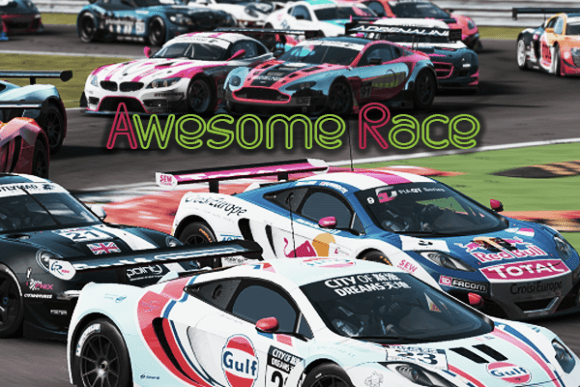
Introduction to Linu Font
As a designer, have you ever been stuck in a creative rut, unable to find the perfect font to bring your project to life? I know I have. But then, like a breath of fresh air, I stumbled upon the Linu Font – a double-lined masterpiece that has become my go-to design resource.
With its high-quality design, the Linu Font is a game-changer for any creative project. Its unique double-lined style adds a touch of sophistication and elegance, making it perfect for designers who want to elevate their work to the next level.
What I love most about the Linu Font is that it’s not only free to download, but it also comes with a transparent background, making it incredibly versatile and easy to use. Whether you’re working on a logo, a brochure, or a website, the Linu Font is sure to bring your design to life in a whole new way.
Key Features of Linu Font
- High-quality, hand-drawn design resource suitable for various creative projects.
- Unique, artistic design that can add a touch of elegance and sophistication to any creative project.
- Perfect for use in graphic design, digital art, and other design-related projects where a high-quality font is required.
Honest Review: Linu Font
I recently stumbled upon the Linu Font, and I must say it’s been a game-changer for my creative projects. This high-quality design resource has been a lifesaver, especially when working on projects that require a unique touch.
- What works well: ✨ The Linu Font is incredibly versatile, and its transparent background makes it perfect for overlaying on images or videos.
- What works well: ✨ The font is highly customizable, allowing me to adjust the size, color, and style to fit my project’s requirements.
Overall, I’m thoroughly impressed with the Linu Font. It’s a fantastic addition to any designer’s toolkit, and I’ve already seen a significant improvement in the quality of my work. If you’re looking for a reliable and high-quality design resource, I highly recommend giving the Linu Font a try.
Linu Font: A High-Quality Design Resource for Creative Projects
Tips for Getting the Most Out of Linu Font
For the best results, use Linu Font with a transparent background to create a clean and modern design. Experiment with different font sizes, colors, and combinations to add visual interest to your design projects.
Common Use Cases for Linu Font
Linu Font is ideal for use in creative projects, such as logos, social media graphics, presentations, and documents. Its high-quality design and transparent background make it a versatile and effective design resource.